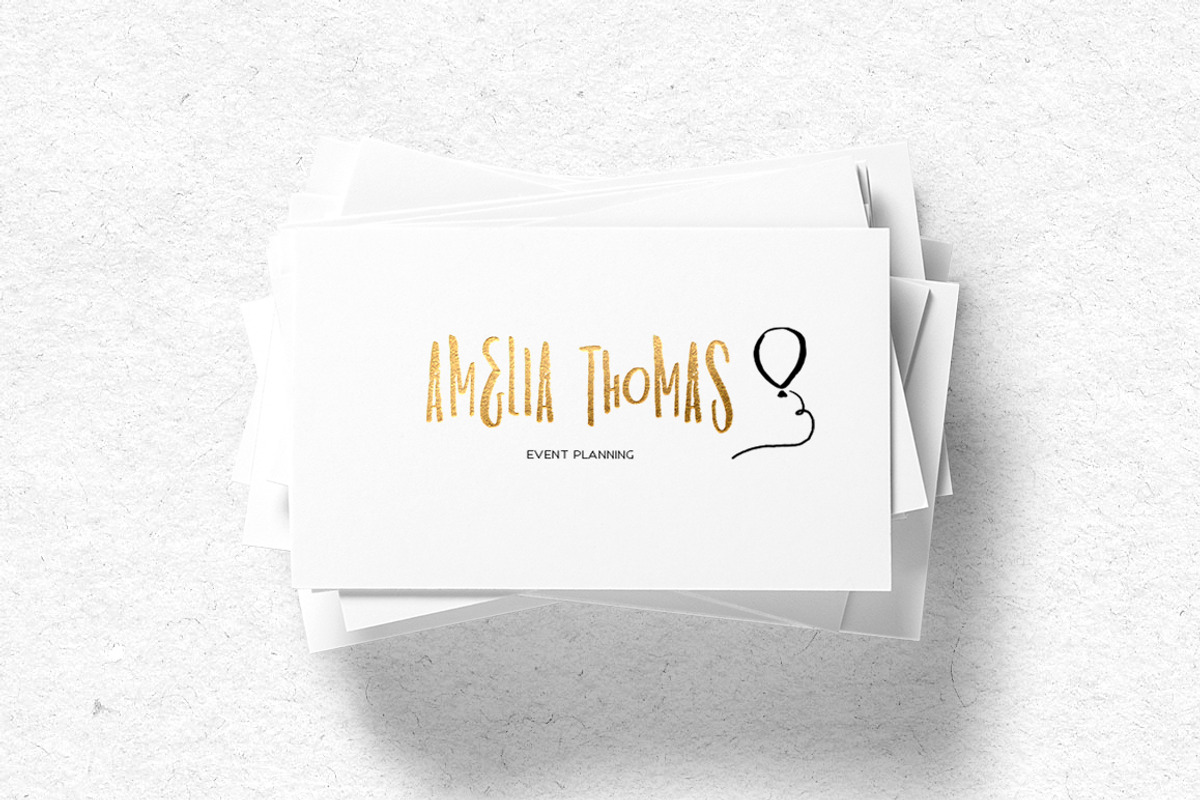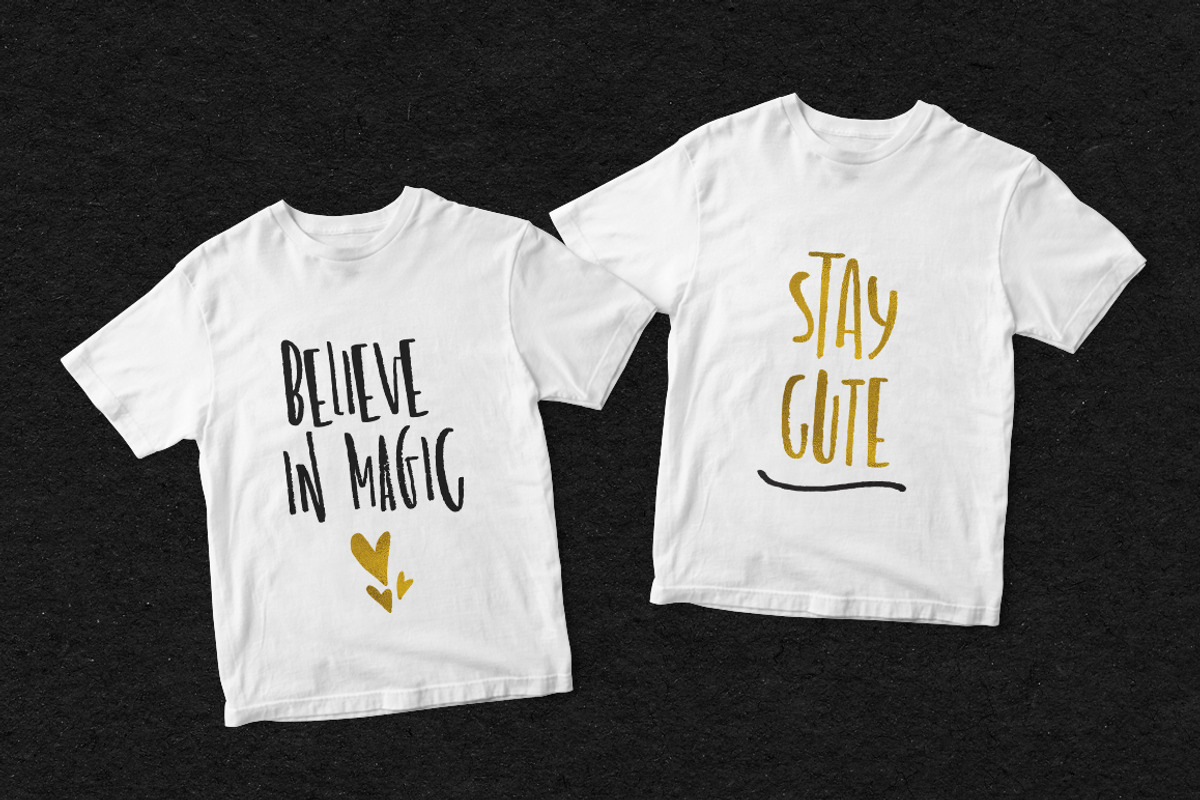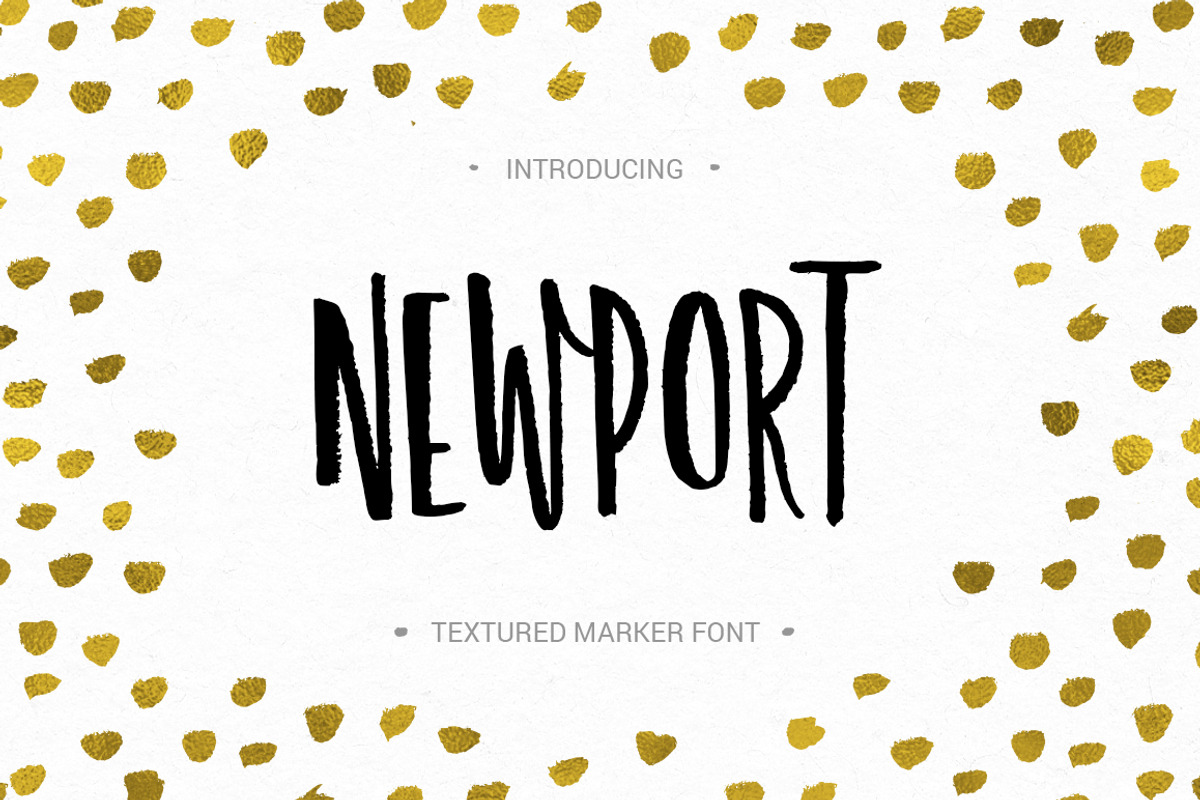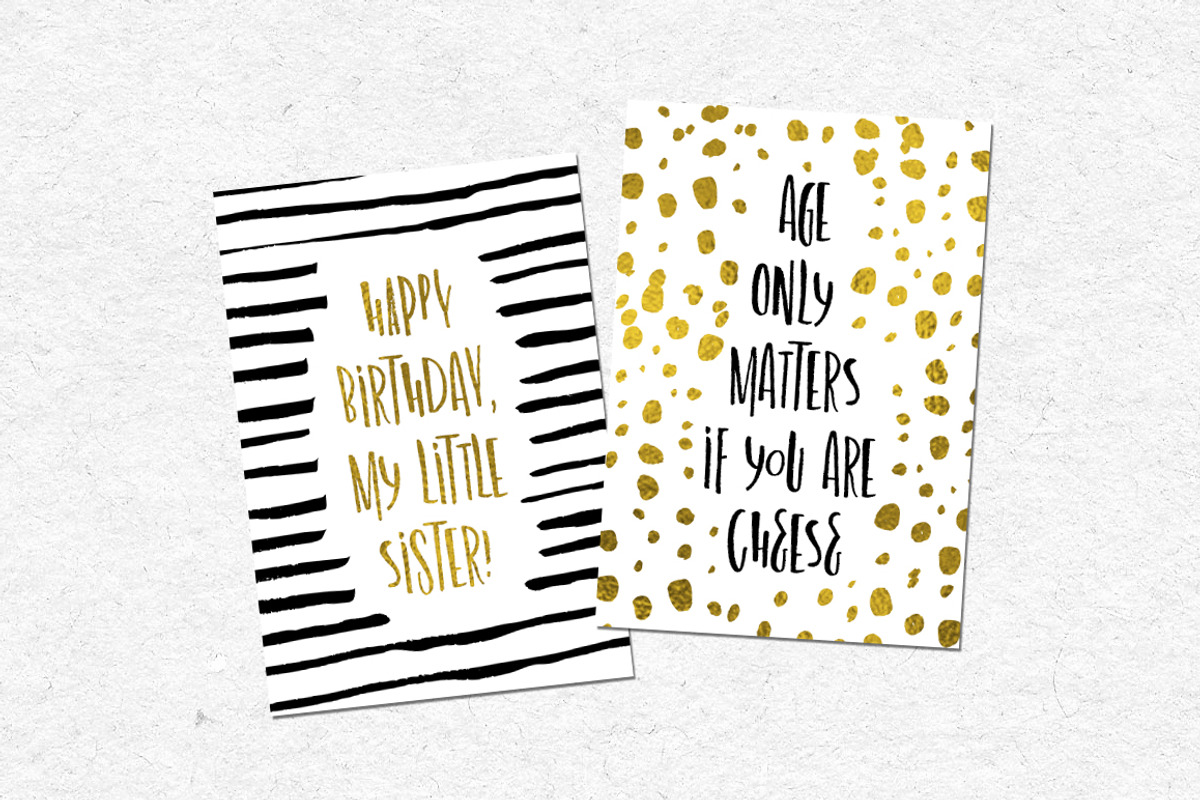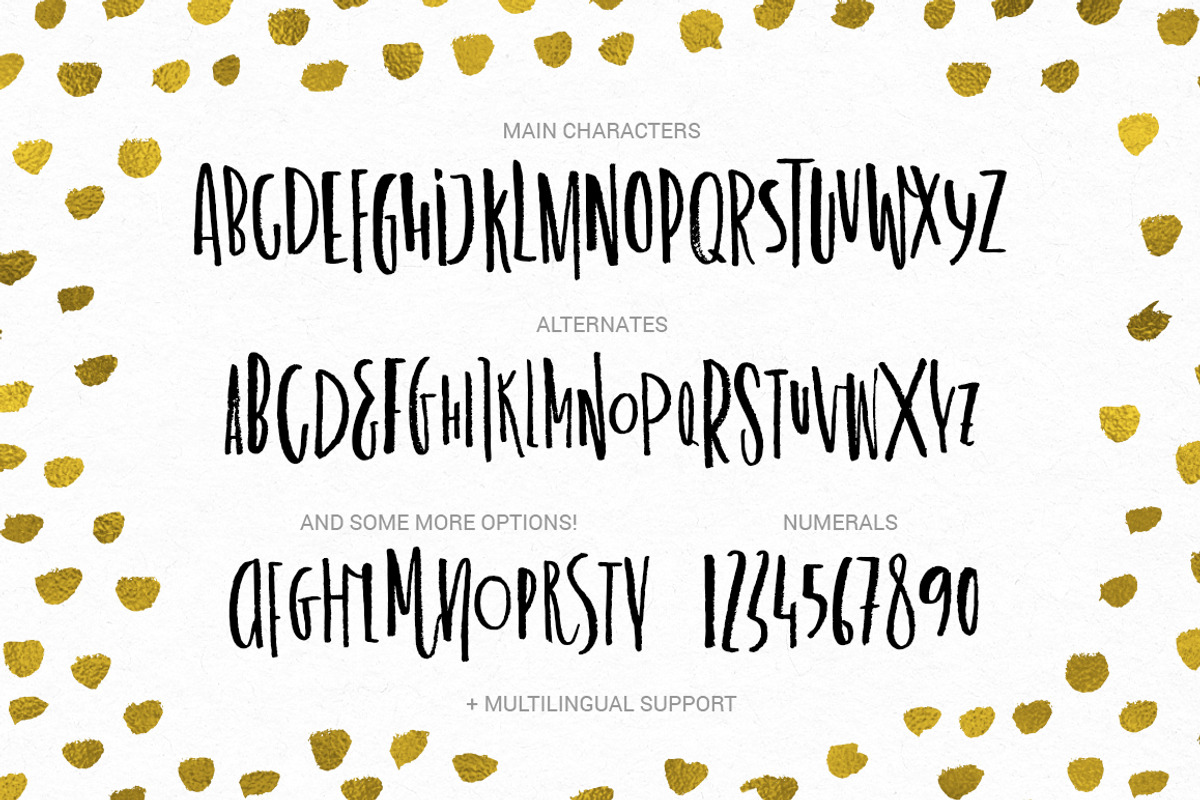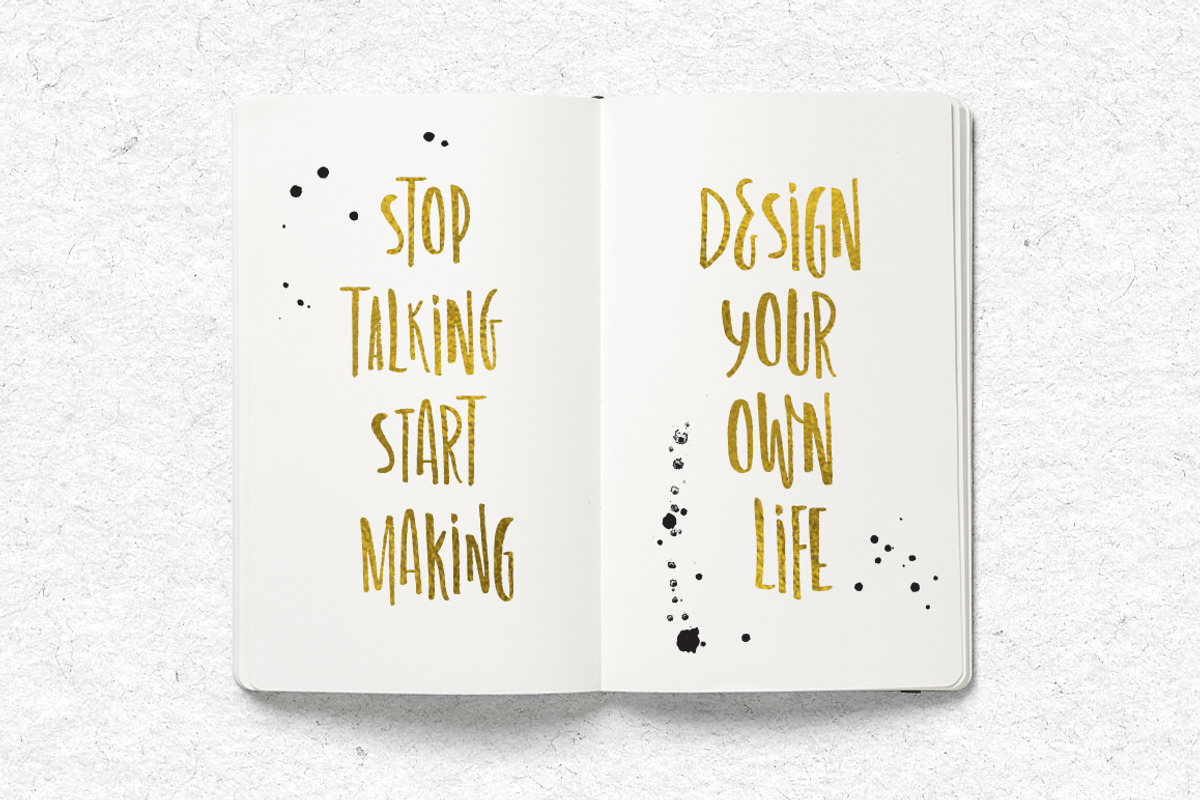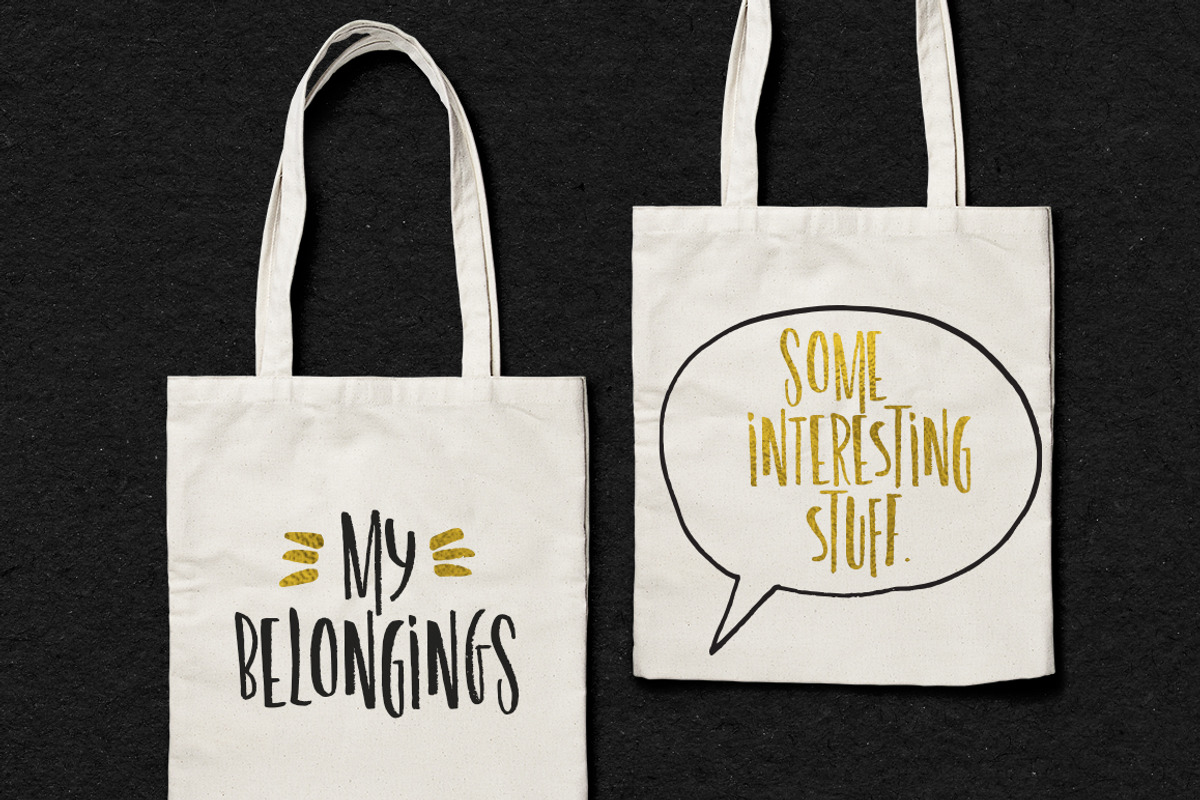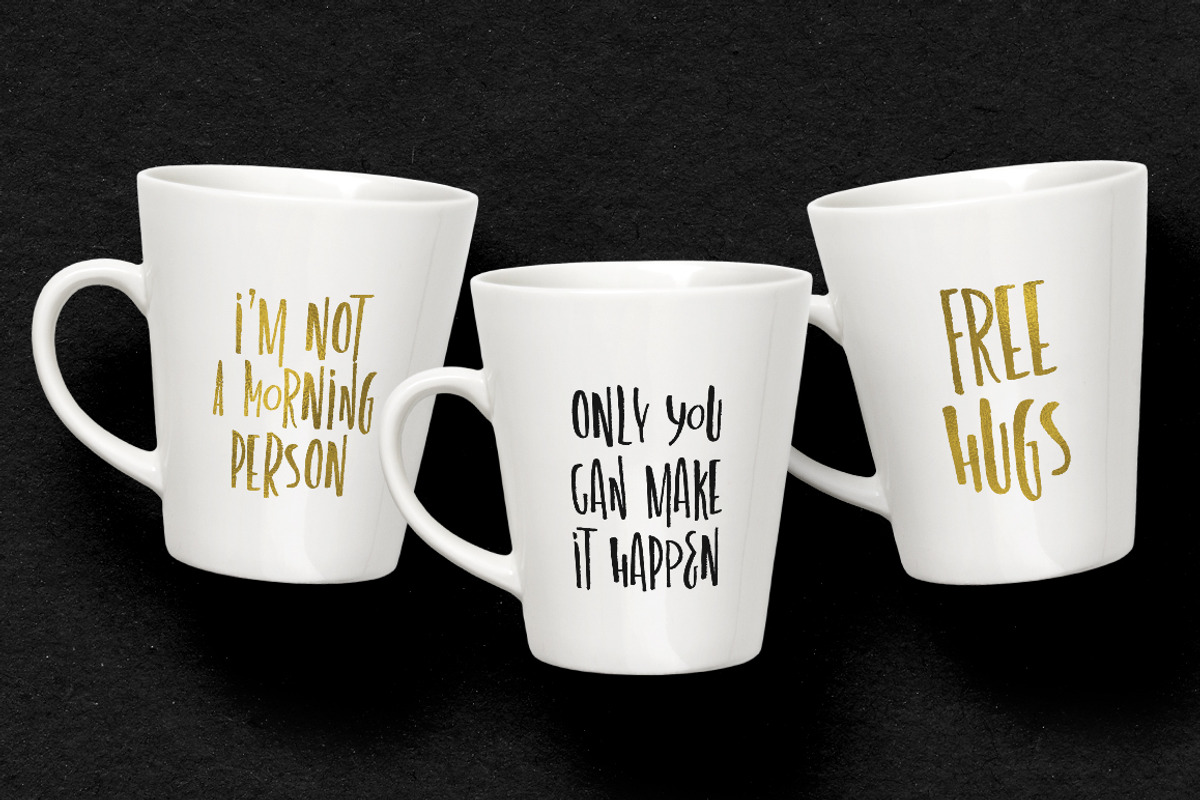
Newport - marker font
Newport - marker font by Favete Art is a font selected for branding, posters, packaging, typography.
- Newport is a sweet uppercase marker font with organic texture and dancing baseline.
- It's noticeable yet easy to read, and has a full set of alternates so you'll have tons of options for your messages!
Why Newport - marker font is worth a look
Newport - marker font by Favete Art fits naturally into Branding, posters, packaging, typography.